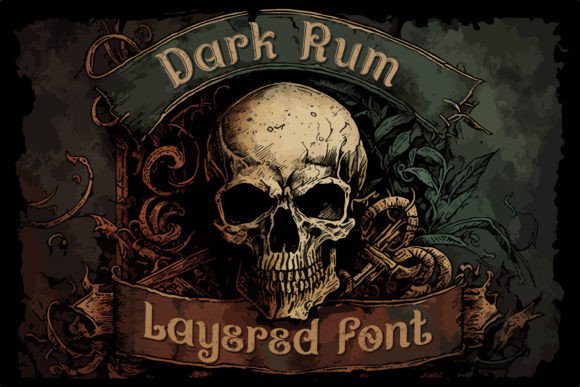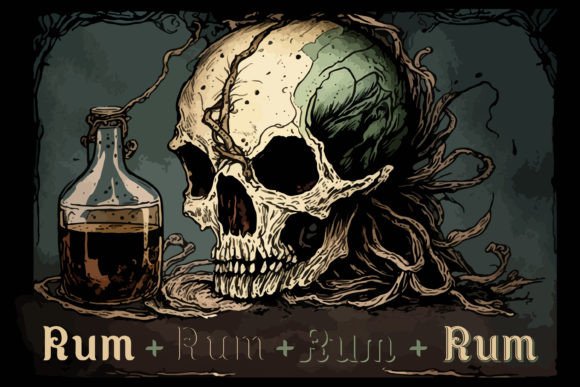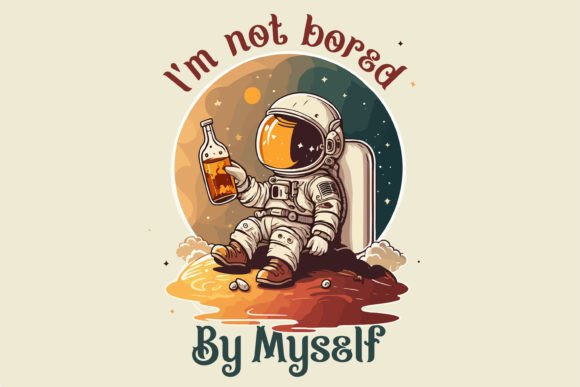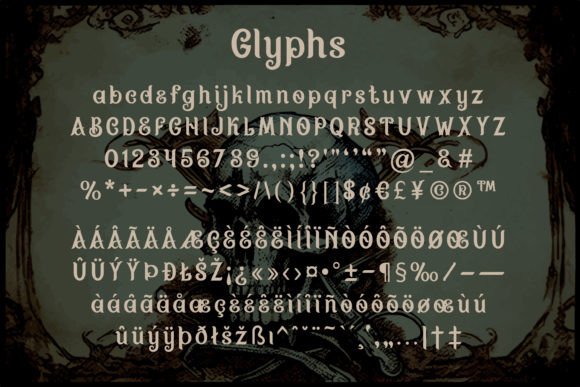
Dark Rum Font: Vintage Horror Display Font for Spooky Designs!
About the Dark Rum Font
Introducing the Dark Rum Font, a beautifully crafted typeface designed to elevate your creative projects. Introducing “Dark Rum”, a vintage horror display font that will transport you to the eerie world of pirates and supernatural creatures. This font boasts a distressed texture with a rum-soaked twist, making it perfect for spooky designs that require a touch of old-world charm. Get ready to set sail into the unknown with “Dark Rum”.
Dark Rum’s distressed texture and vintage style make it ideal for headlines, posters, and branding projects requiring a strong, slightly rebellious aesthetic. It excels in creating a sense of mystery and intrigue, perfect for horror-themed projects, vintage-inspired designs, or brands aiming for a gritty, authentic feel. However, its highly textured nature makes it unsuitable for body text or UI elements where readability is paramount.
Pairing Dark Rum effectively requires considering its rough, vintage character. A clean sans-serif like Montserrat or a geometric sans-serif such as Futura would provide a stark contrast, balancing the font’s ruggedness with modern clarity. For a more cohesive, vintage feel, a complementary serif such as Playfair Display could be used for supporting text.
The overall personality of Dark Rum is bold, mysterious, and vintage. It evokes a sense of adventure and the unexpected, making it a powerful choice for projects that demand attention and a strong visual impact.
Dark Rum Font Usage Examples
Dark Rum Font Example